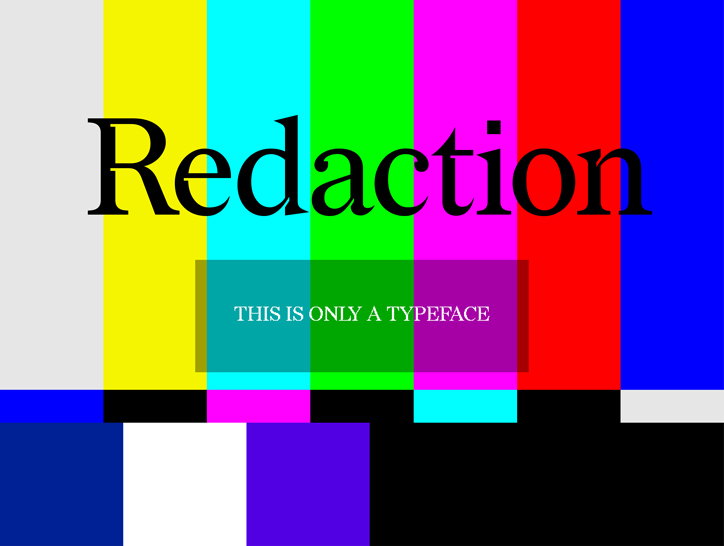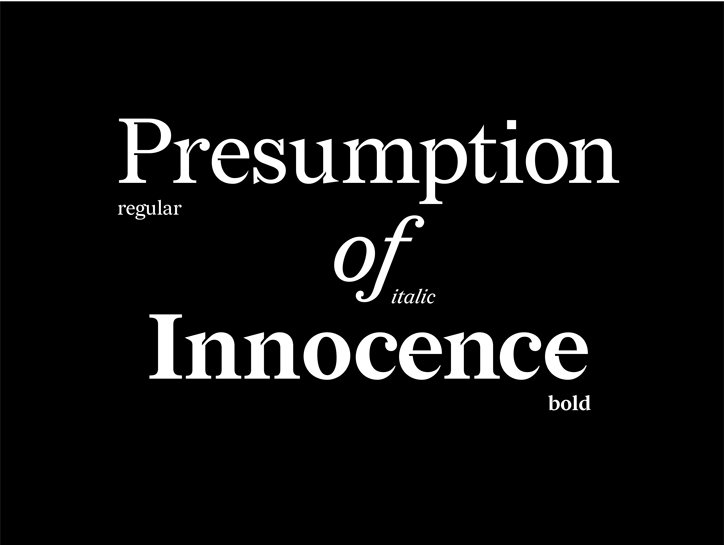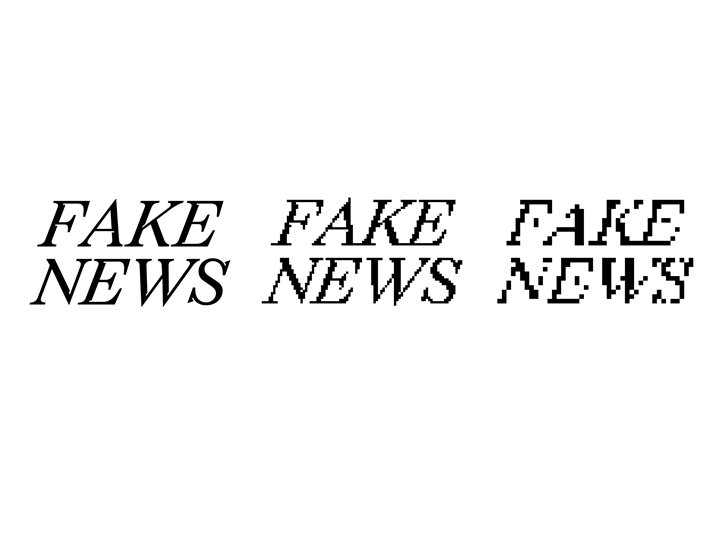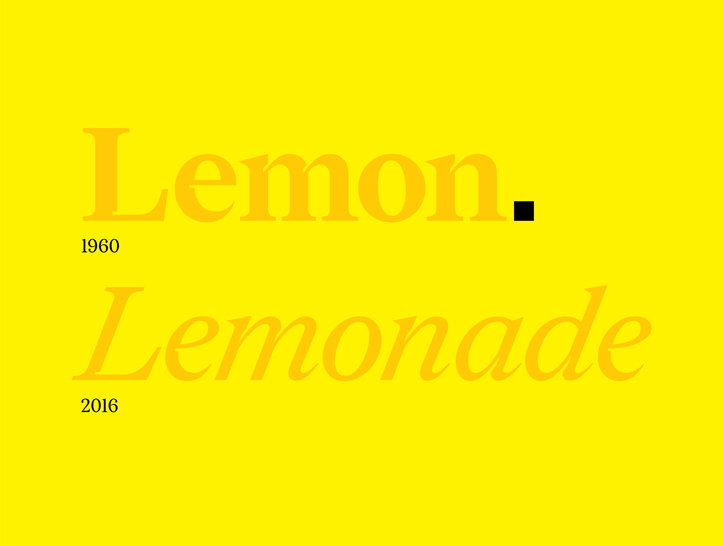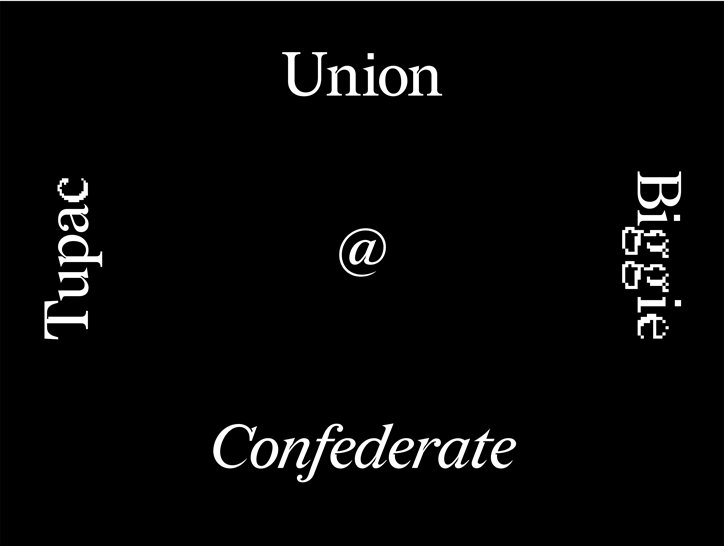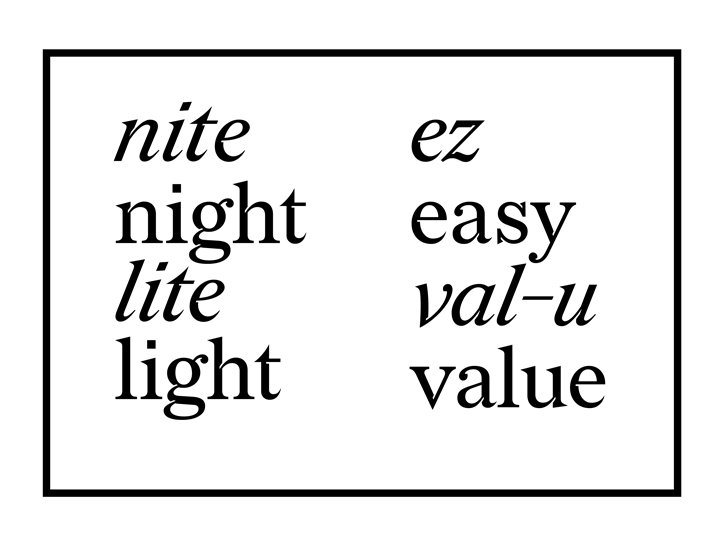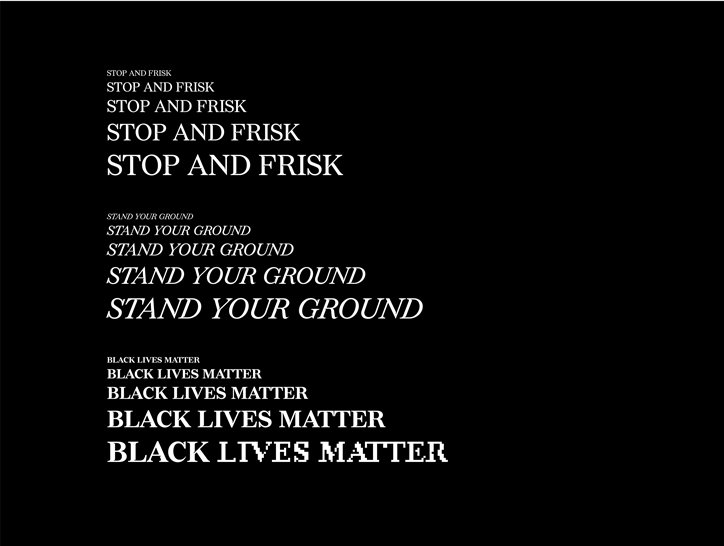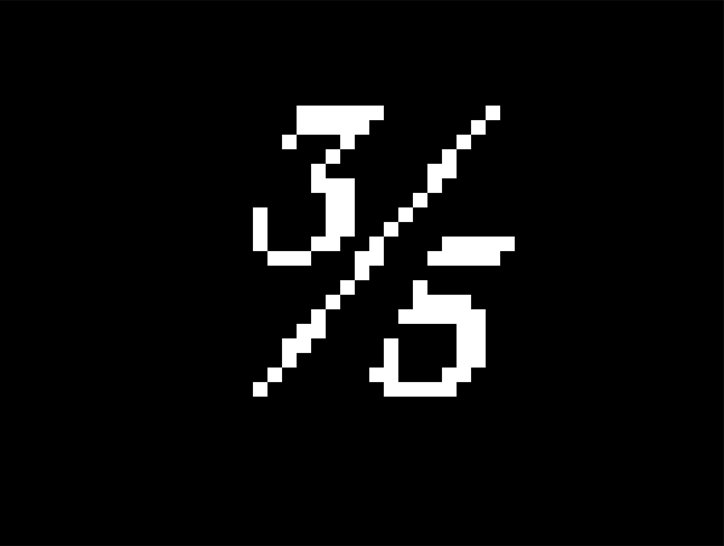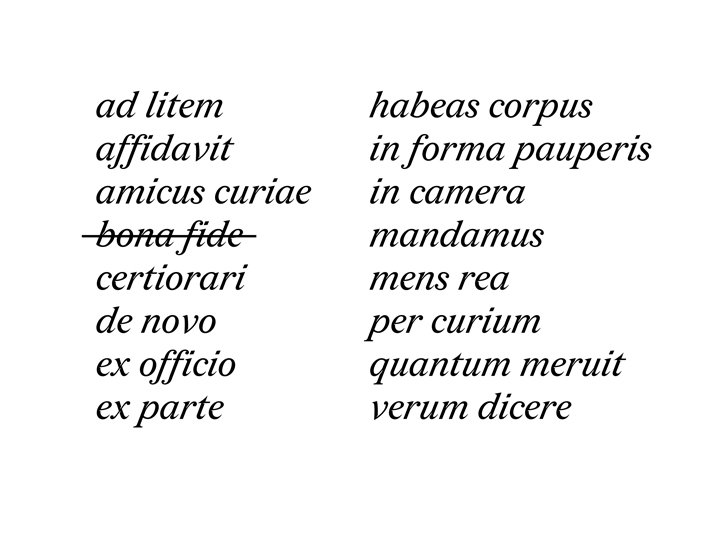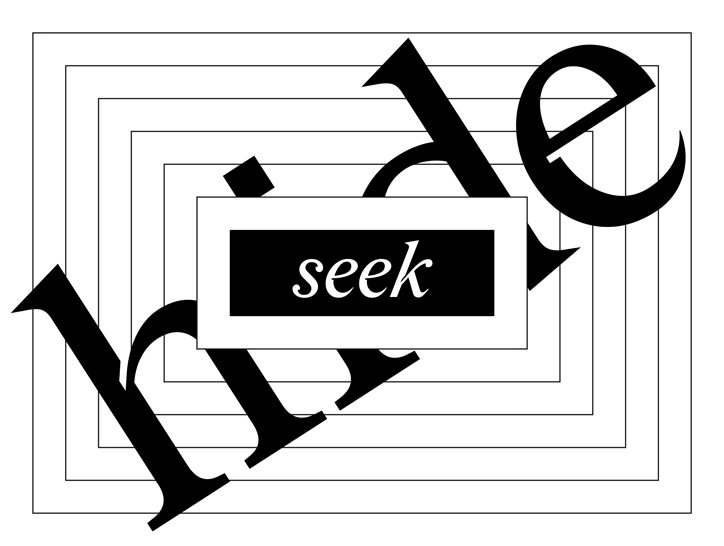
Typeface Redaction charts the history and abuses of the US criminal justice system
Created to accompany a MoMA PS1 exhibition of the same name, Redaction is a typeface that seeks to capture the history and problems of the US criminal justice system. It was created by designer Forest Young and MCKL foundry’s Jeremy Mickel to accompany the show by artist and filmmaker Titus Kaphar poet and attorney Reginald Dwayne Betts, which presents 30 new prints exploring the failings of state and federal court systems.
Their poetry and portraits draw on source material from lawsuits filed by the Civil Rights Corps on behalf of people flung into prison, despite never having been tried or convicted, because of an inability to pay court fines and fees. Using redaction as a tool to make verse out of complex legalese, the artists aim to reclaim the stories of people who have been impacted by the US’s policy of mass incarceration.
Given the important subject matter, Titus wanted to use a typeface that fitted the message of the work, and called on former Yale classmate Forest (who then brought Jeremy onboard) for the task. “The typographic dimension that Titus and I discussed loosely referenced a conversation we had had almost 15 years prior in a studio critique at Yale,” says Forest. “I had mentioned that the typeface he was incorporating into his painting was designed by Hermann Zapf, type designer extraordinaire but also a former Nazi soldier and cartographer. Was this choice intentional? I believe that language is always experienced through a filter of some kind, which in itself is a language, so a typeface is a prism of particular distortion and expression. A bespoke typeface would allow us to express the particular ethos of the show – a conscious defamiliarising of the everyday.”
Conducting exhaustive field research, Forest and Jeremy looked at how to echo the history of the court system in the typeface. “Forest and I wanted to learn as much as we could about the history of legal typography and the practice of redaction (especially apt in the days after the Mueller report was released),” says Jeremy. “We found that there were many different kinds of redaction: straightforward black boxes, incomplete redactions, white boxes which seemingly invite the reader to complete the phrase like mad-libs, and hand-scrawled notations crossing out text. We also noted that many documents contained traces of their history as they passed through the legal system, through evidence like fax machine bitmapping and photocopier distortion.”
Forest Young and Jeremy Mickel: Redaction
As a Typeface, Redaction is meant to feel familiar, echoing Times New Roman and New Century Schoolbook (the typefaces of legal documents in the United States), but with elements abstracted and heightened. Jeremy says, “We saw these references as an opportunity – to make a design which simultaneously evoked the authority and nondescript functionality of these fonts, while also accepting the challenge to make something new.”
The pair also drew on the US Presidential Seal, which depicts an eagle clasping an arrow and an olive branch. As Jeremy explains, “We saw this as a metaphor for the harsh dichotomy of cruelty and kindness in the legal system, and we referenced this in the font by exaggerating thin strokes until they were razor sharp, and making ball terminals supple and generous.” Redaction comes in regular, bold and italic styles and in bitmap versions that range from subtly analogue through to the near-illegible. Forest adds, “From the source documents we observed that degradation had a form of narrative; the number of hands that touched the document, or the effort applied to concealing. The final typeface anticipates degradation, and embraces it in the font family.”
As well as being used in the artworks and the exhibition graphics, the typeface is available to download for free – “a rarity in the type world”, as Forest notes. It was recently used for a gallery show at MICA showcasing designers of colour and another designer even got a tattoo of Redaction’s numbers on his forearm. For Forest, this merely represents the beginning of its impact, too. “Our collective hopes are that we can continue the momentum of the project – scaling the ethos of raising awareness of cash bail injustices and providing the tools to combat them, be they the sublime works of [Titus] Kaphar and [Reginald Dwane] Betts or new artefacts created by those engaged in the project and who downloaded the typeface.”
Forest Young and Jeremy Mickel: Redaction